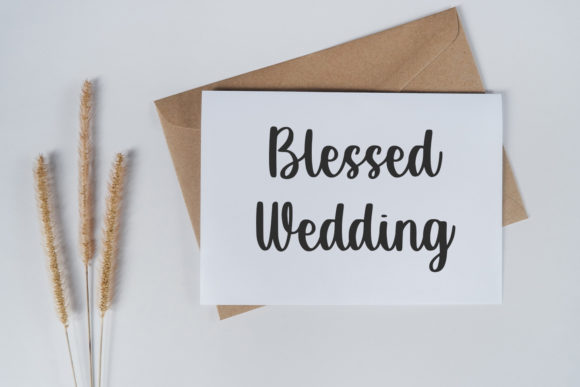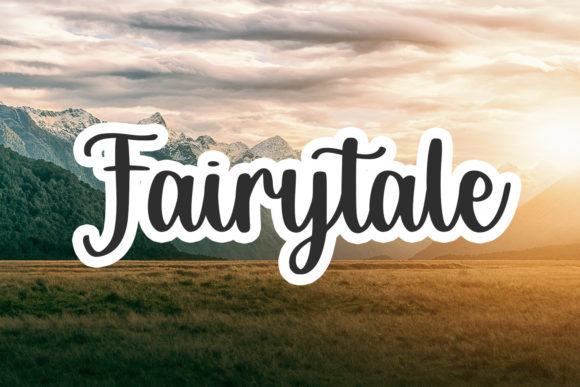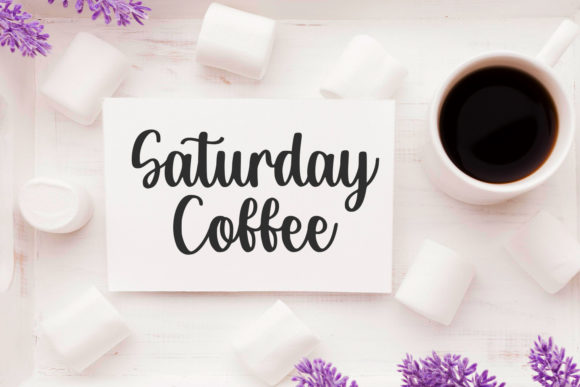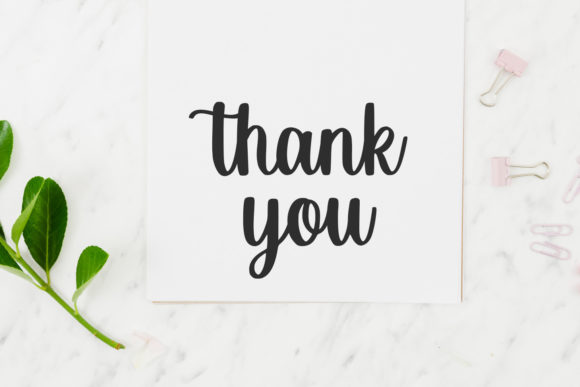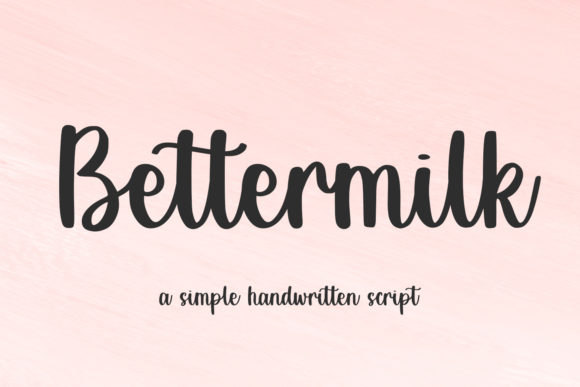
Introducing Bettermilk Font: Elevate Your Designs with Elegance and Personality
In the world of typography, fonts play a crucial role in conveying the tone and style of a design. For designers and crafters seeking a unique and elegant handwritten font, Bettermilk is an exceptional choice. This beautiful font is perfect for creating personalized designs that stand out, including wedding invitations, thank you cards, weddings, greeting cards, logos, and more.
The Charm of Bettermilk Font
Bettermilk Font is a distinctive and refined handwritten font that adds a touch of sophistication to any design. Its elegant strokes and flowing curves create a sense of luxury and refinement, making it ideal for designs that require a high level of personalization. Whether you’re a designer looking to create stunning wedding stationery or a crafter seeking to add a personal touch to your DIY projects, Bettermilk Font is sure to impress.
Key Features of Bettermilk Font
- Unique and Elegant Design: Bettermilk Font boasts a one-of-a-kind design that exudes elegance and refinement.
- Handwritten Style: The font’s handwritten style adds a personal touch to any design, making it perfect for creating bespoke wedding invitations, greeting cards, and more.
- Versatile: Bettermilk Font can be used on a variety of designs, including logos, wedding stationery, thank you cards, and other DIY projects.
- Easy to Read: Despite its elegant design, Bettermilk Font remains easy to read, making it perfect for both digital and print designs.
Uses for Bettermilk Font
Bettermilk Font is an incredibly versatile font that can be used in a wide range of design applications. Here are some ideas to get you started:
- Wedding Invitations: Create stunning wedding invitations that set the tone for your special day.
- Thank You Cards: Add a personal touch to your thank you cards and make them truly special.
- Greeting Cards: Design beautiful greeting cards for birthdays, anniversaries, and other special occasions.
- Logos: Use Bettermilk Font to create a unique and elegant logo for your business or brand.
- DIY Projects: Add a touch of elegance to your DIY projects, such as scrapbooking, crafting, and more.
Tips for Using Bettermilk Font
To get the most out of Bettermilk Font, here are some tips to keep in mind:
- Pair with Other Fonts: Experiment with pairing Bettermilk Font with other fonts to create a unique and visually appealing design.
- Adjust Font Size: Adjust the font size to create visual interest and hierarchy in your design.
- Use on High-Quality Paper: For print designs, use Bettermilk Font on high-quality paper to showcase its elegance and refinement.
Bettermilk Font is a truly unique and elegant handwritten font that can elevate your designs to the next level. Its versatility, readability, and charm make it an excellent choice for designers and crafters seeking to create personalized and sophisticated designs. Whether you’re creating wedding invitations, greeting cards, logos, or DIY projects, Bettermilk Font is sure to impress.